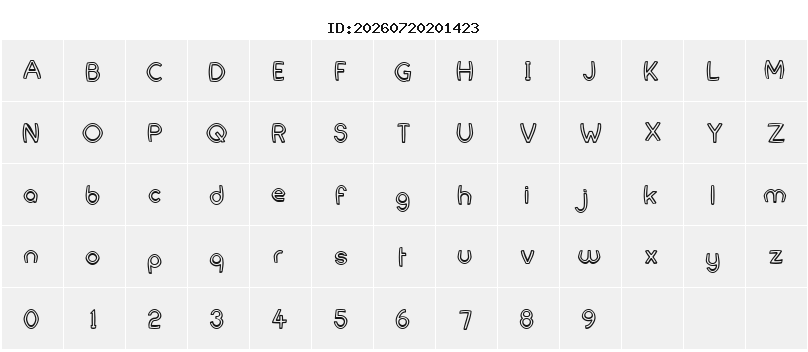
FortuneCity Comic Outline  Preview
About FortuneCity Comic Outline .ttf
FortuneCity Comic Outline .ttf is a modern, elegant sans-serif font designed for ultimate readability and visual harmony. Perfect for branding, headlines, web design, and print materials.